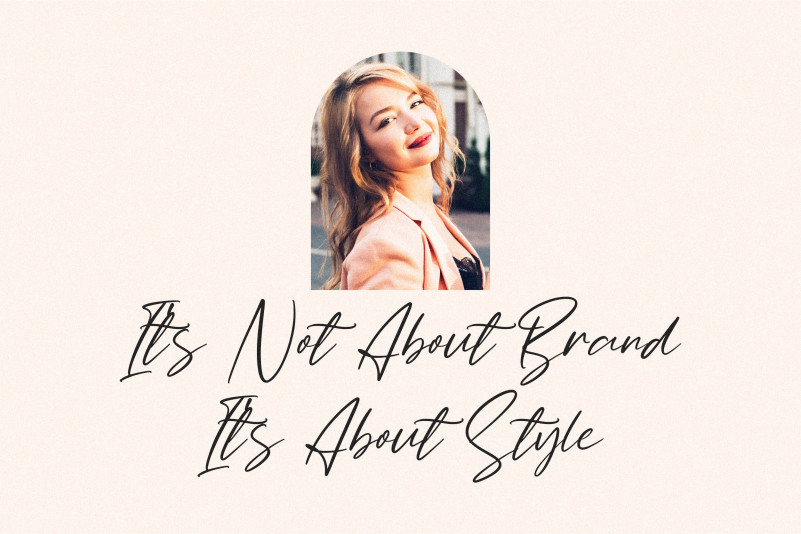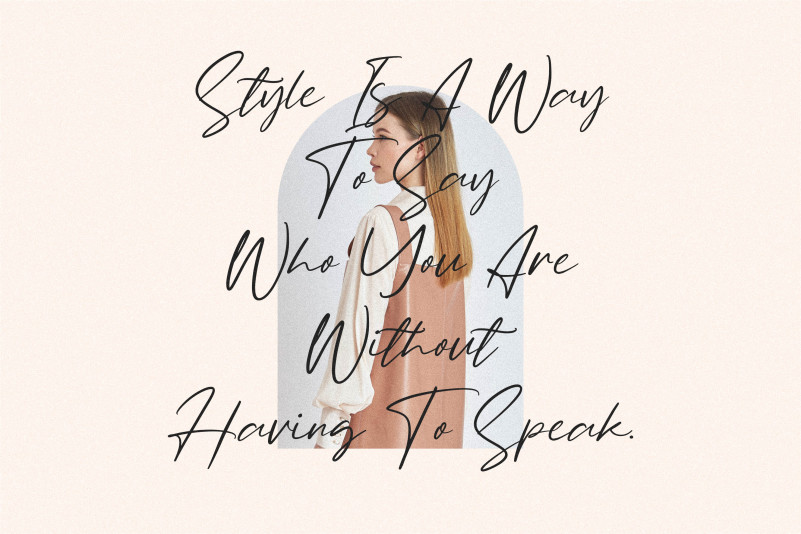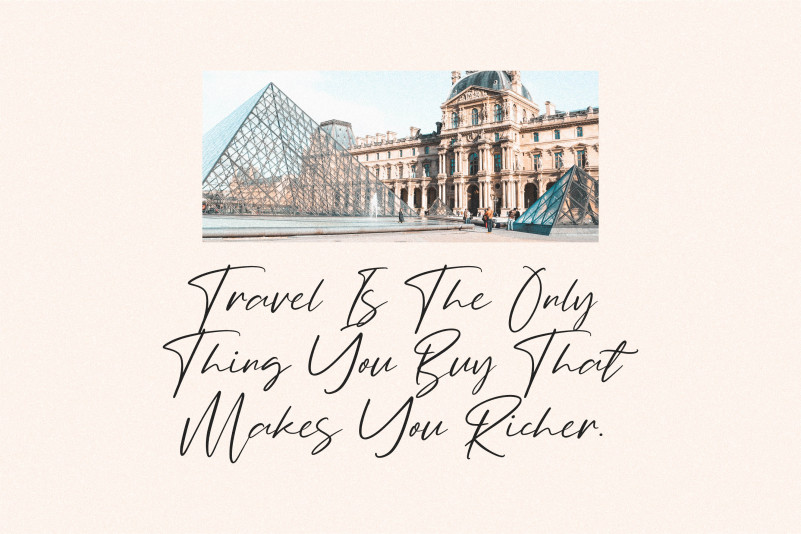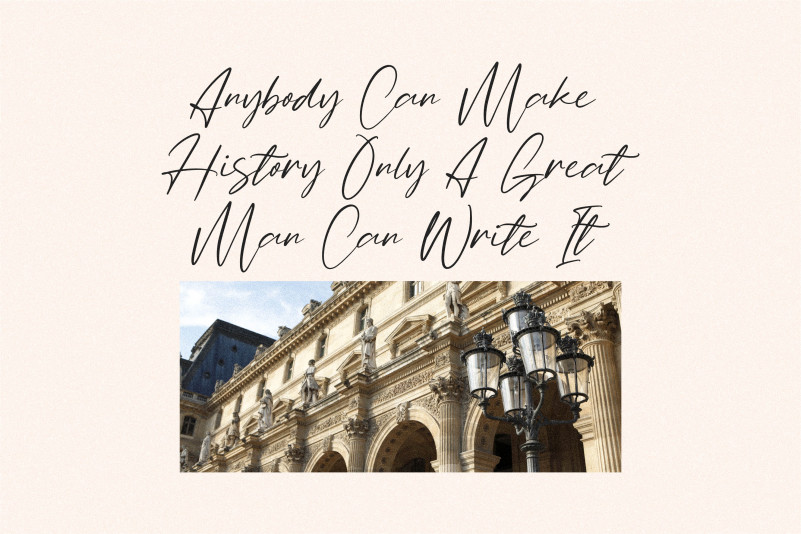
Bullgeria Font
Bullgeria Script Font
This is a stylish and delicate script font. It has a clean, thin and smooth vibe and it will be a hit for any design that you want to add it to. This font is PUA encoded which means you can access all of the glyphs and swashes with ease!